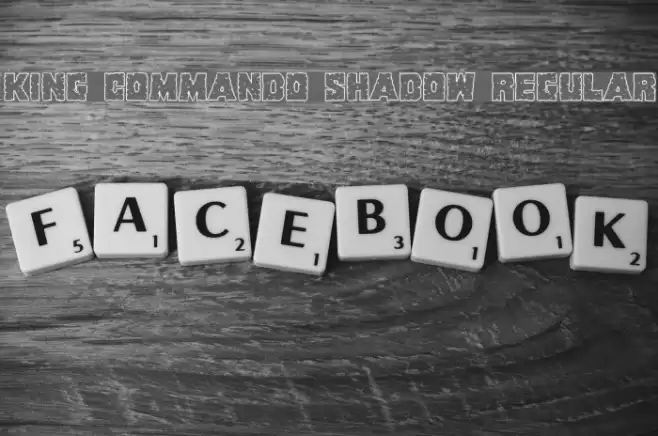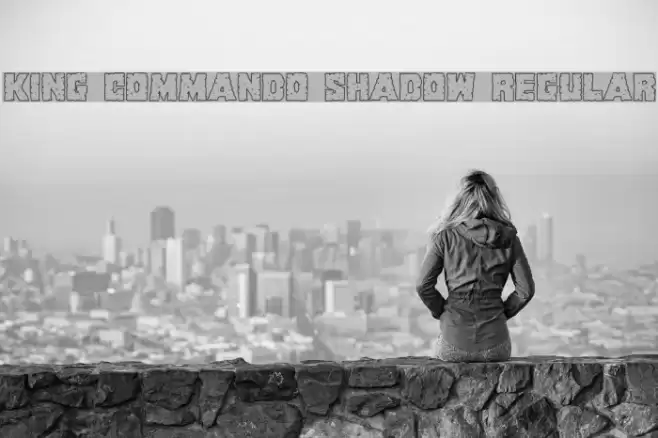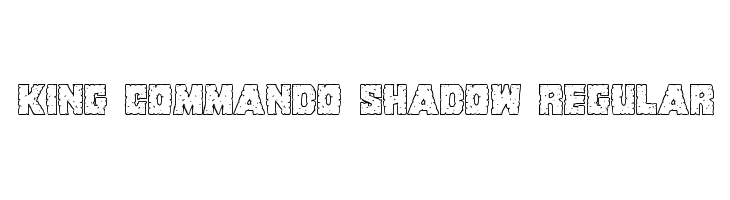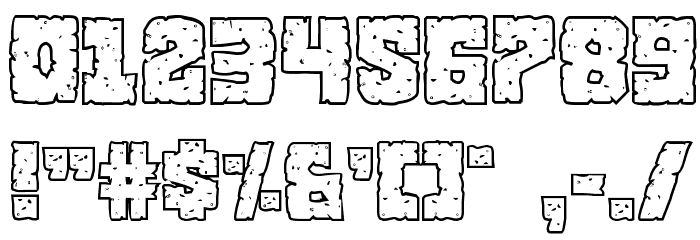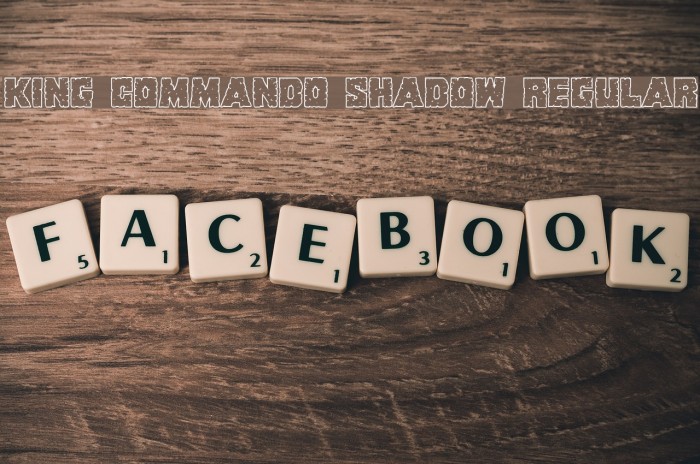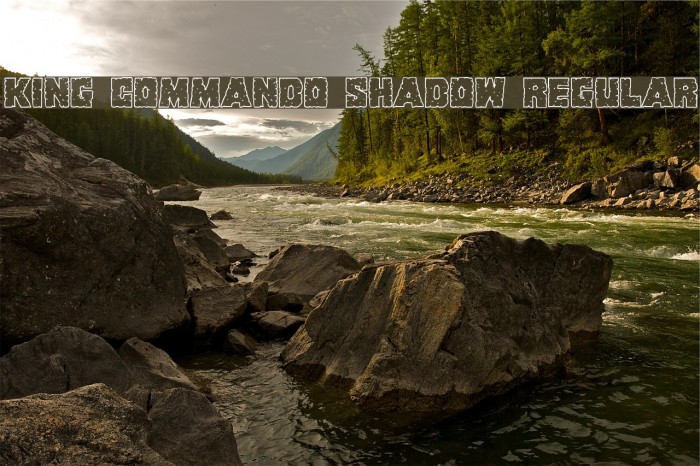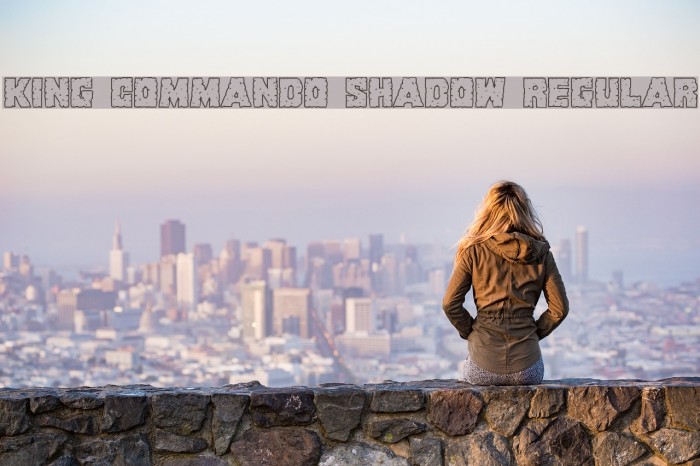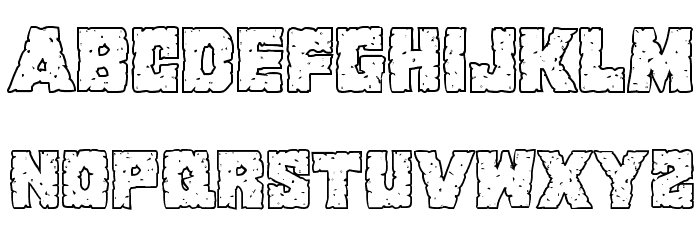
King Commando Shadow Regular Font
King Commando Shadow Regular Description
This font features a bold, rugged design with a shadow effect that gives it a three-dimensional appearance. The characters are blocky and heavily textured, resembling a stone or concrete surface with cracks and imperfections. This style conveys a sense of strength and durability, making it ideal for projects that require a commanding presence. The uppercase and lowercase letters maintain a consistent style, while the numbers and special characters are equally bold and textured, ensuring uniformity across all text elements.
A bold, rugged font with a textured, shadowed design from Distorted Eroded fonts.
- Proposed Projects: Ideal for military-themed posters, video game titles, or any project needing a strong, impactful typeface.